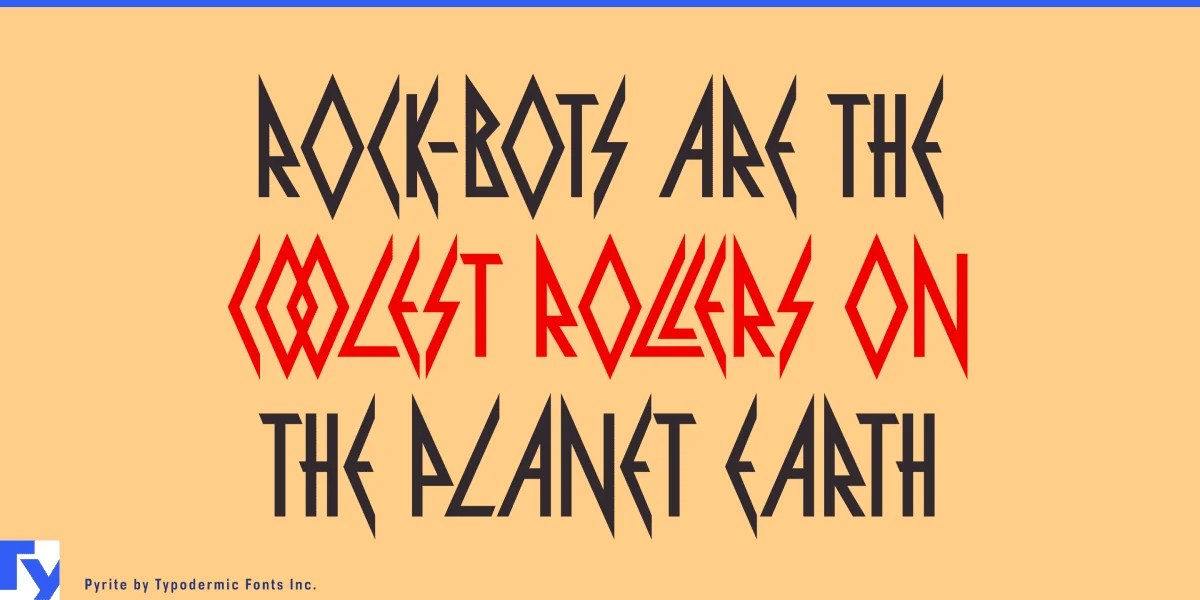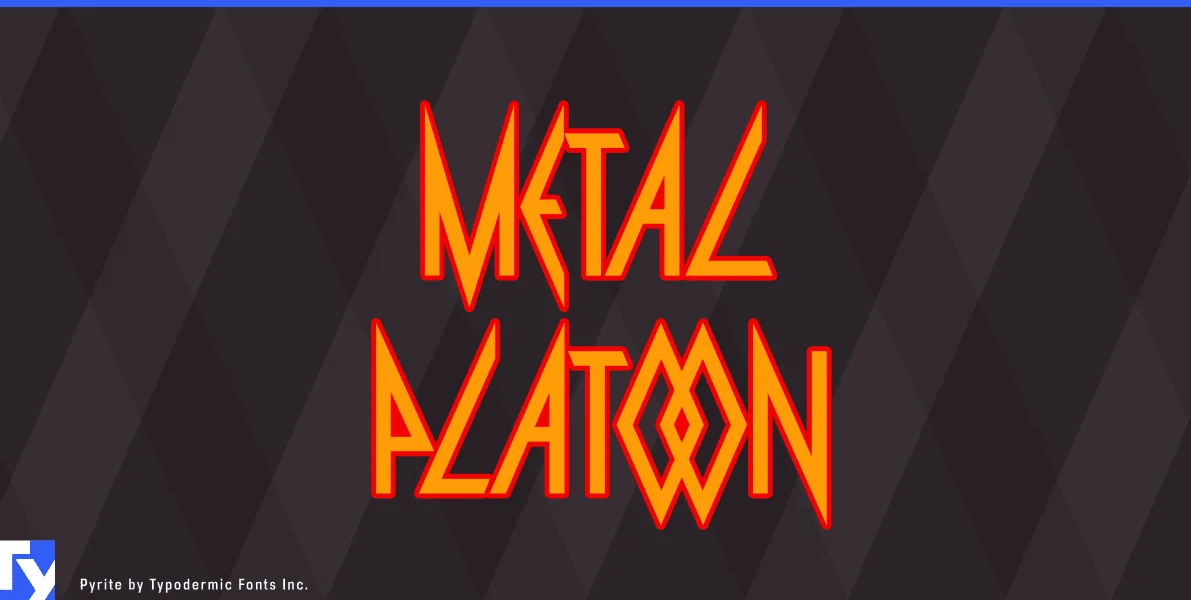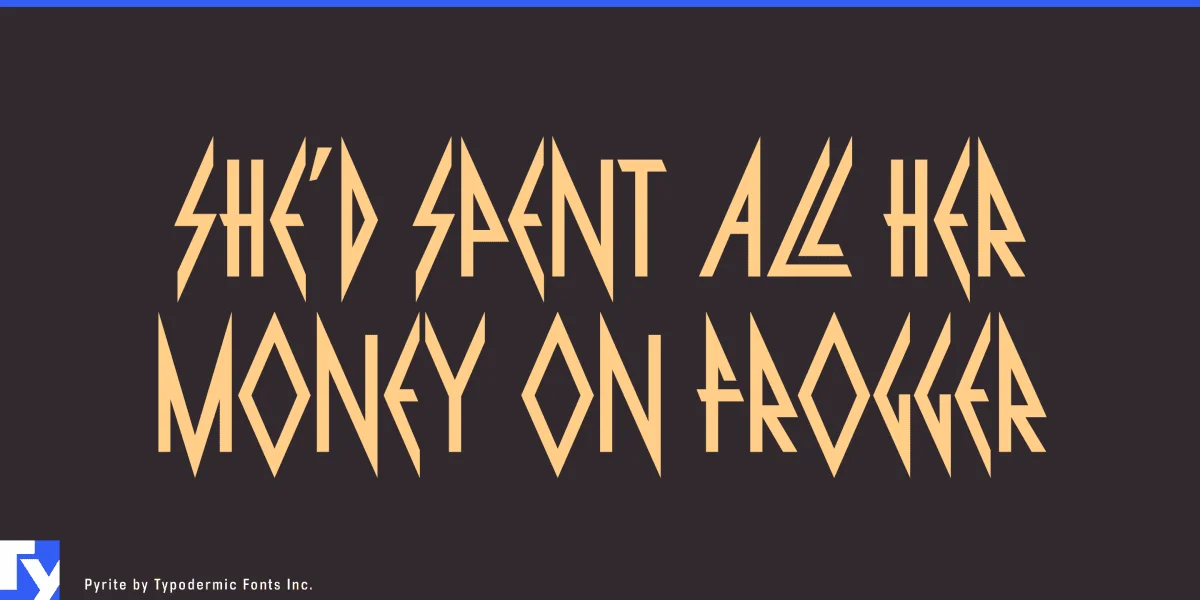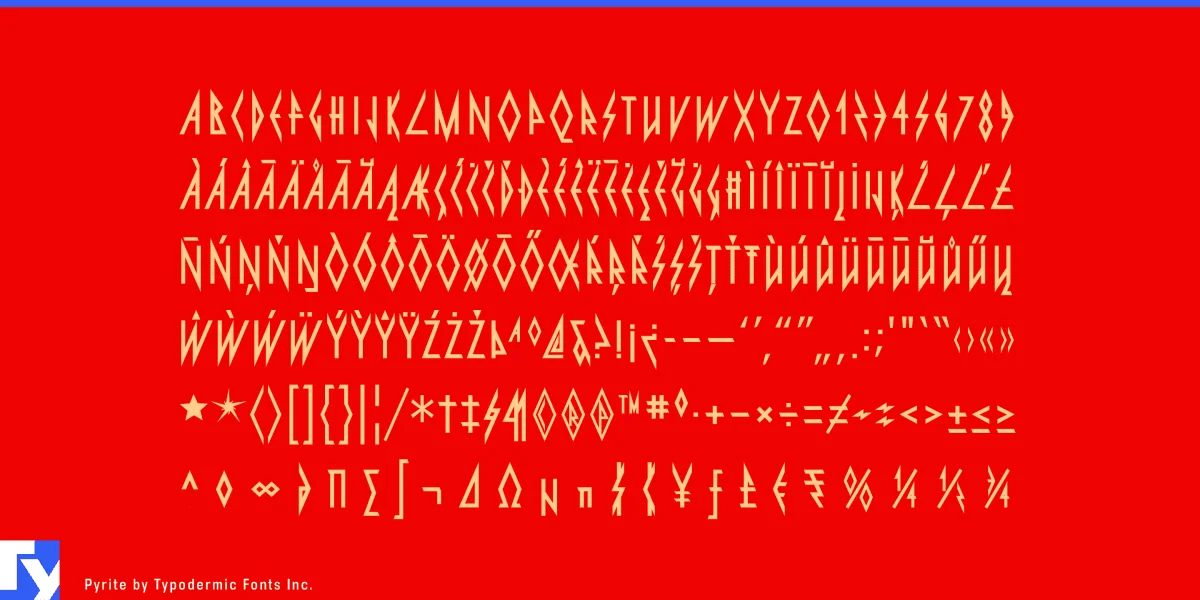
Pyrite is a heavy metal display typeface with angular characters. In OpenType-aware programs, the bottom stroke of the L will alter depending on which letter comes after it. Ligatures for LL and OO pairs have been included. Most Latin-based European writing systems are supported, including the following languages. Afaan Oromo, Afar, Afrikaans, Albanian, Alsatian, Aromanian, Aymara, Bashkir (Latin), Basque, Belarusian (Latin), Bemba, Bikol, Bosnian, Breton, Cape Verdean, Creole, Catalan, Cebuano, Chamorro, Chavacano, Chichewa, Crimean Tatar (Latin), Croatian, Czech, Danish, Dawan, Dholuo, Dutch, English, Estonian, Faroese, Fijian, Filipino, Finnish, French, Frisian, Friulian, Gagauz (Latin), Galician, Ganda, Genoese, German, Greenlandic, Guadeloupean Creole, Haitian Creole, Hawaiian, Hiligaynon, Hungarian, Icelandic, Ilocano, Indonesian, Irish, Italian, Jamaican, Kaqchikel, Karakalpak (Latin), Kashubian, Kikongo, Kinyarwanda, Kirundi, Kurdish (Latin), Latvian, Lithuanian, Lombard, Low Saxon, Luxembourgish, Maasai, Makhuwa, Malay, Maltese, Māori, Moldovan, Montenegrin, Ndebele, Neapolitan, Norwegian, Novial, Occitan, Ossetian (Latin), Papiamento, Piedmontese, Polish, Portuguese, Quechua, Rarotongan, Romanian, Romansh, Sami, Sango, Saramaccan, Sardinian, Scottish Gaelic, Serbian (Latin), Shona, Sicilian, Silesian, Slovak, Slovenian, Somali, Sorbian, Sotho, Spanish, Swahili, Swazi, Swedish, Tagalog, Tahitian, Tetum, Tongan, Tshiluba, Tsonga, Tswana, Tumbuka, Turkish, Turkmen (Latin), Tuvaluan, Uzbek (Latin), Venetian, Vepsian, Võro, Walloon, Waray-Waray, Wayuu, Welsh, Wolof, Xhosa, Yapese, Zapotec Zulu and Zuni.